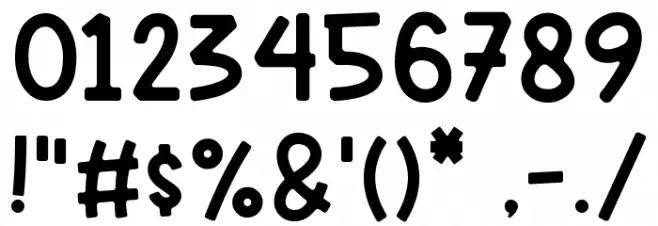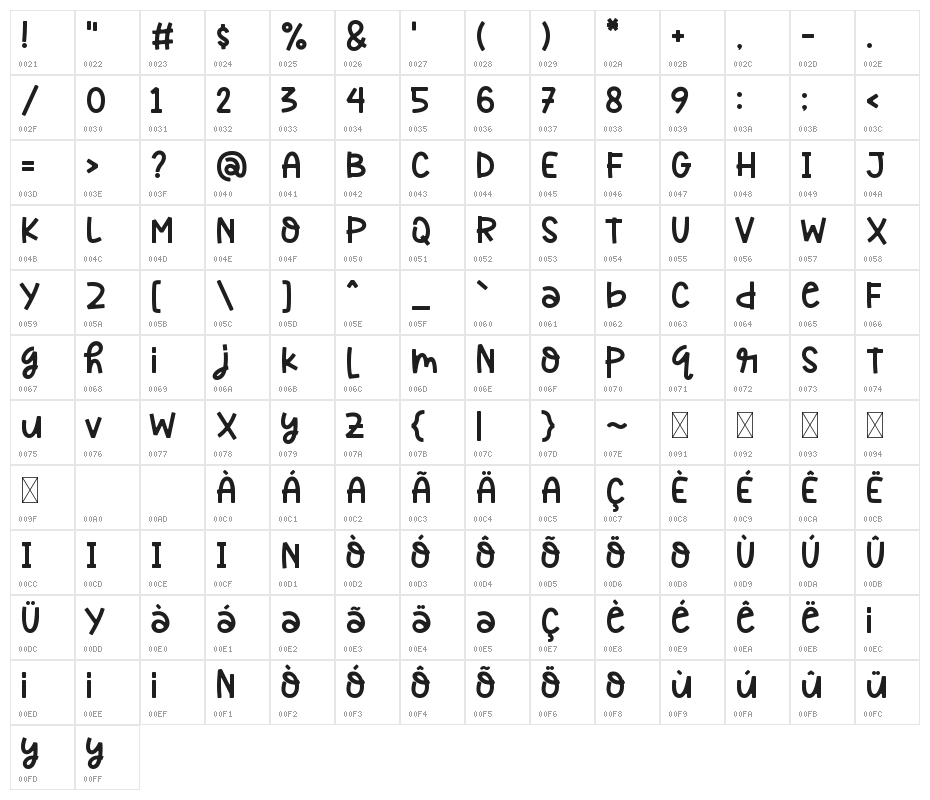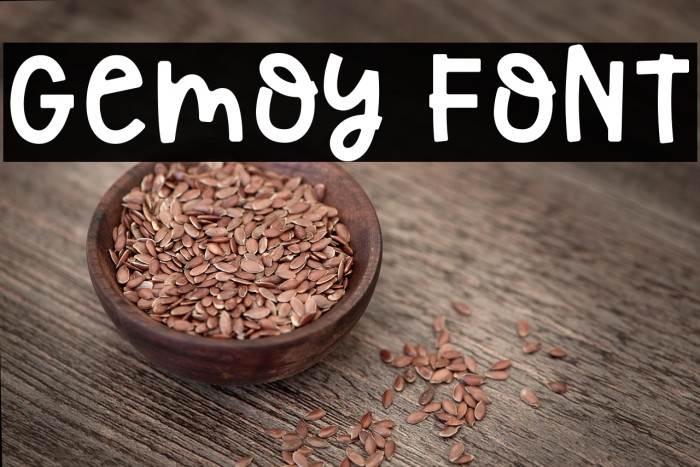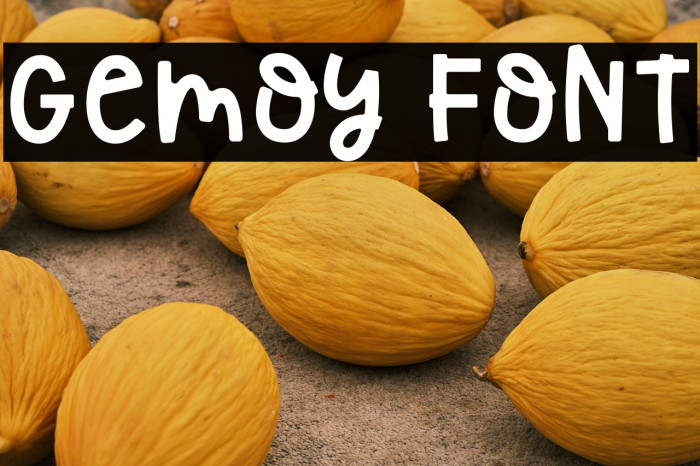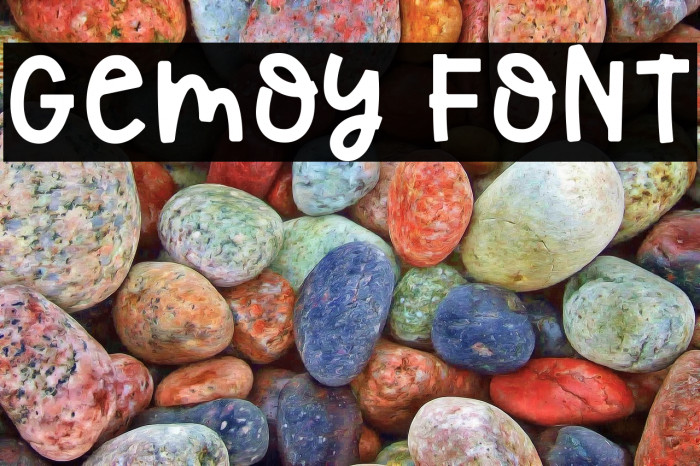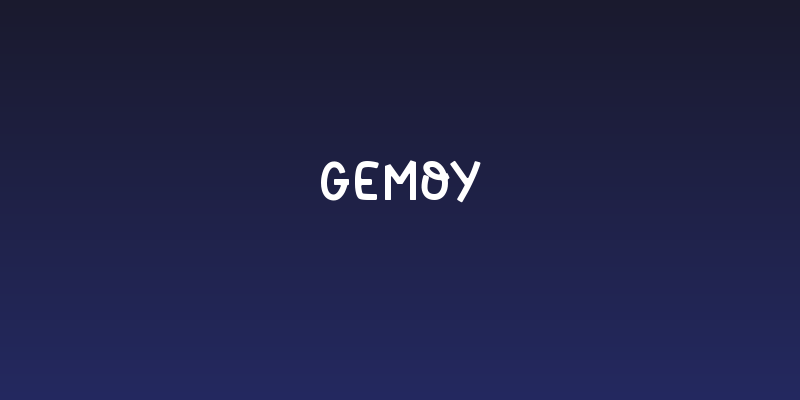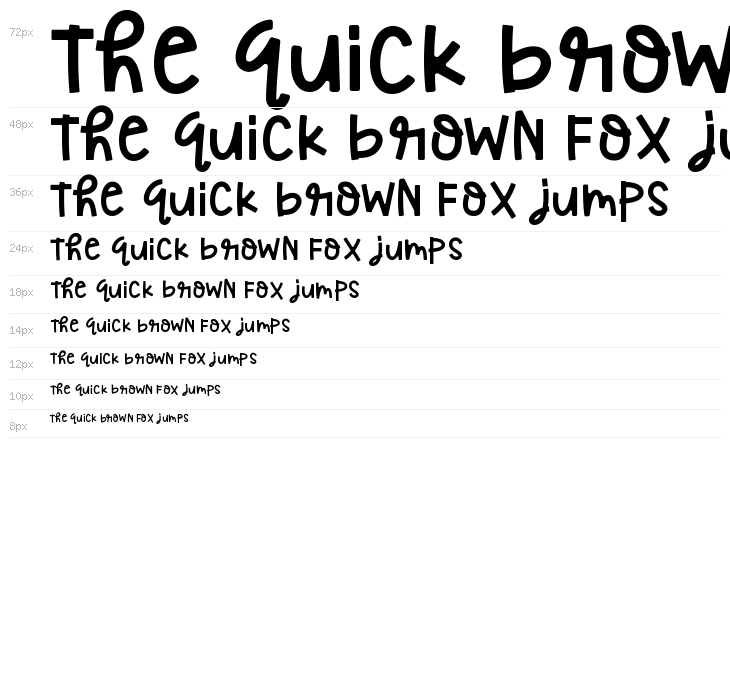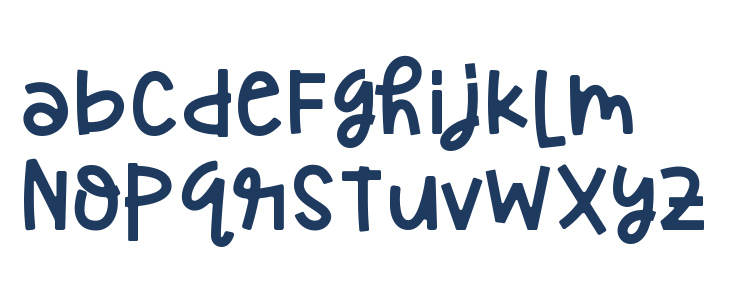
Gemoy Font
Gemoy Description
This playful and whimsical font features a handwritten style with bold, rounded strokes that convey a sense of fun and creativity. The characters are slightly irregular, adding to the casual and informal feel. Uppercase and lowercase letters are distinct, with some lowercase letters having unique loops and curves. The numerals are consistent with the overall style, maintaining the playful aesthetic. Special characters are included, matching the font's lively and dynamic appearance. This font is ideal for projects that require a personal touch or a sense of humor.
| Proposed Projects | Perfect for children's books, greeting cards, playful branding, and creative social media graphics. |